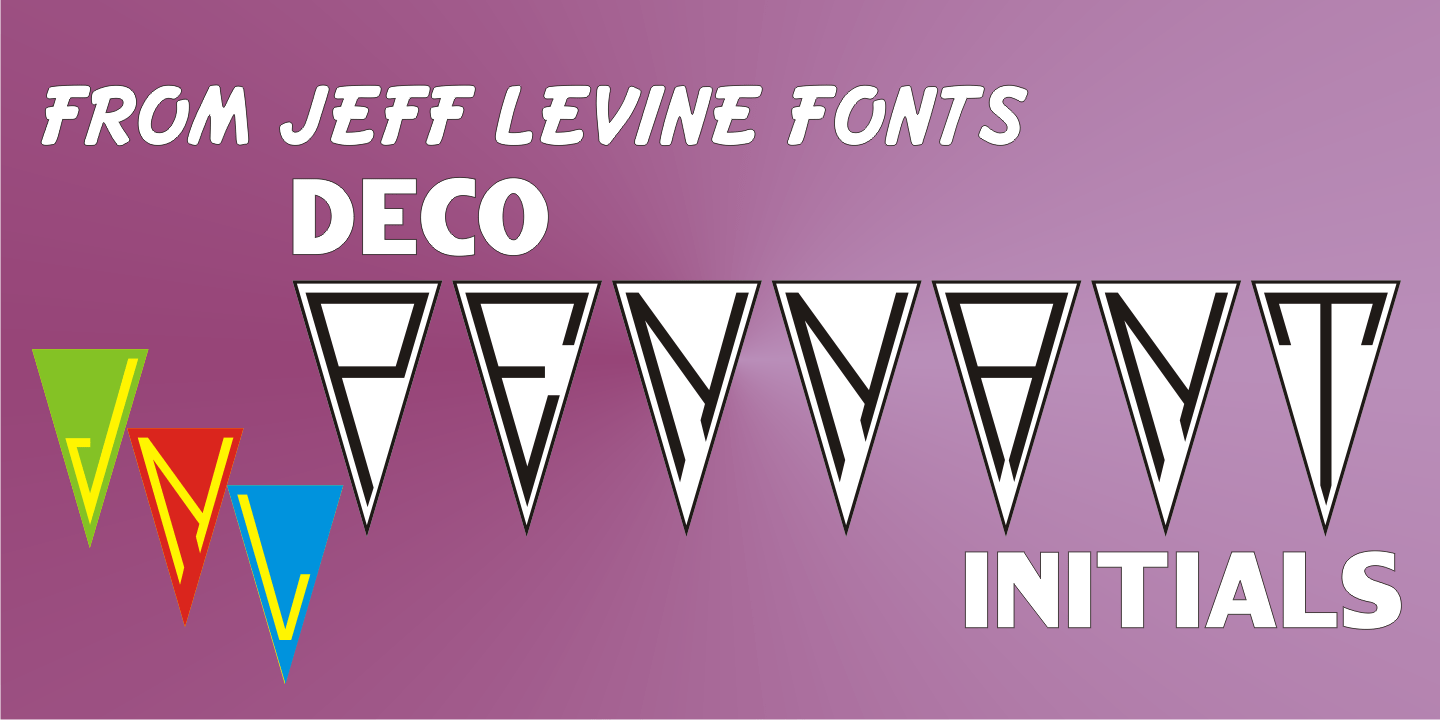
Deco Pennant Initials
Online auctions continue to be a surprising wealth of font design inspiration. In this instance, a number of silk embroidered Art Deco initials inside inverted triangles inspired Deco Pennant Initials JNL.
The uppercase version is white lettering on a black background – similar to the originals. On the lowercase keys is a set of initials that are black on white with a black border.
Since the inverted triangles resemble pennants, there's a solid black blank on the left parenthesis key and a outlined blank one on the right parenthesis key.
In this way, the initials could be used for monograms or interspersed with the blanks to form short banner messages.